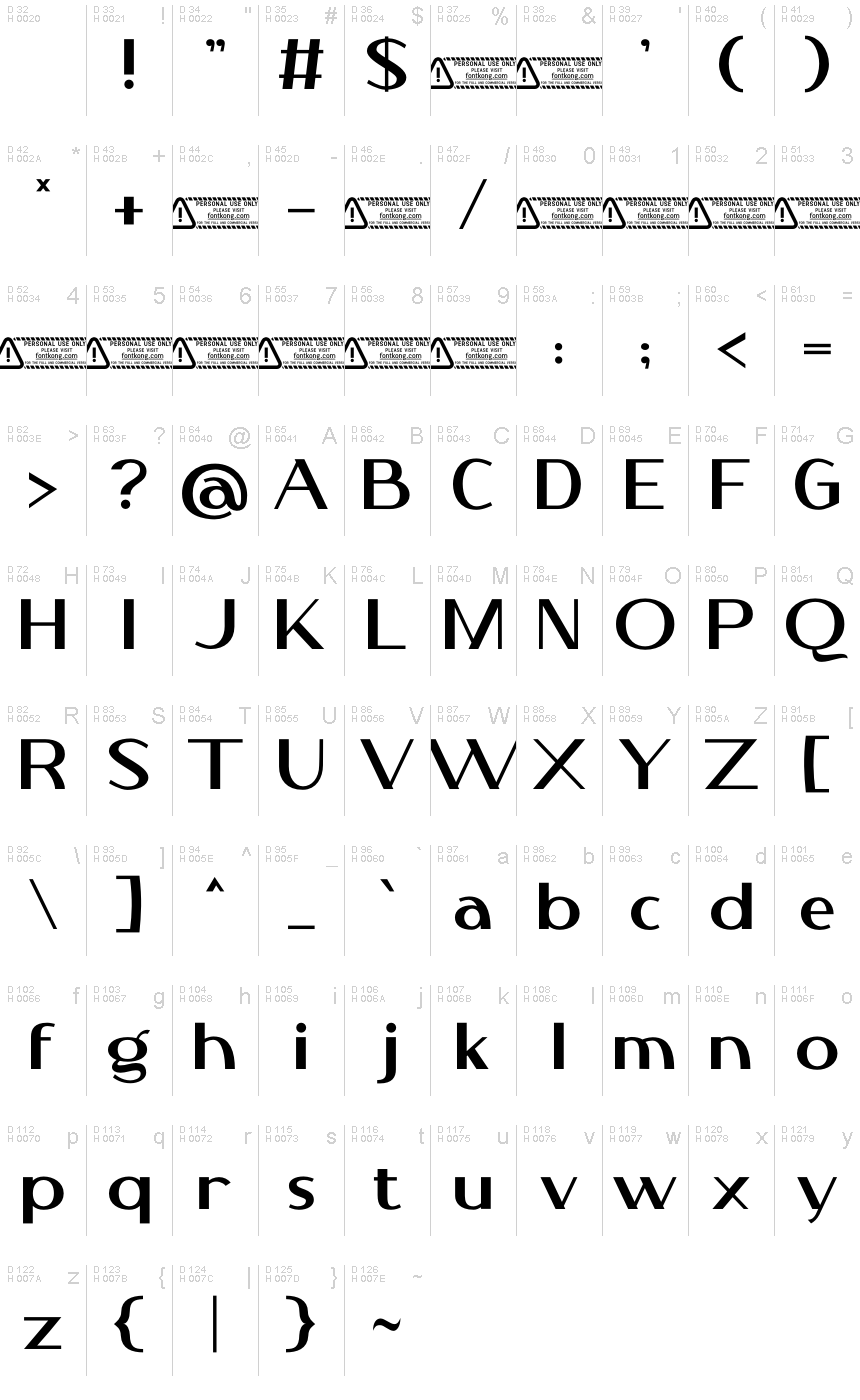
Alozera font was designed by Kong Font. Cloak your words in style: Alozera is a serif typeface offering an exquisite high contrast and simplicity of shapes. It feels modern, confident, sophisticated and graceful with its sharp edges and gives beautiful impression to every letter. Alozera creates classic atmosphere together with contemporary spirit while its balanced proportions work as a subtle solution for any design.
This font is perfect for display use in advertising, web design, packaging or logo design projects giving them touch of elegance and splendor they need! Additionally it looks great in books, magazines or lighter text paragraphs which makes it suitable also for bigger blocks of copy text on any screen captivate audience through compelling visuals.